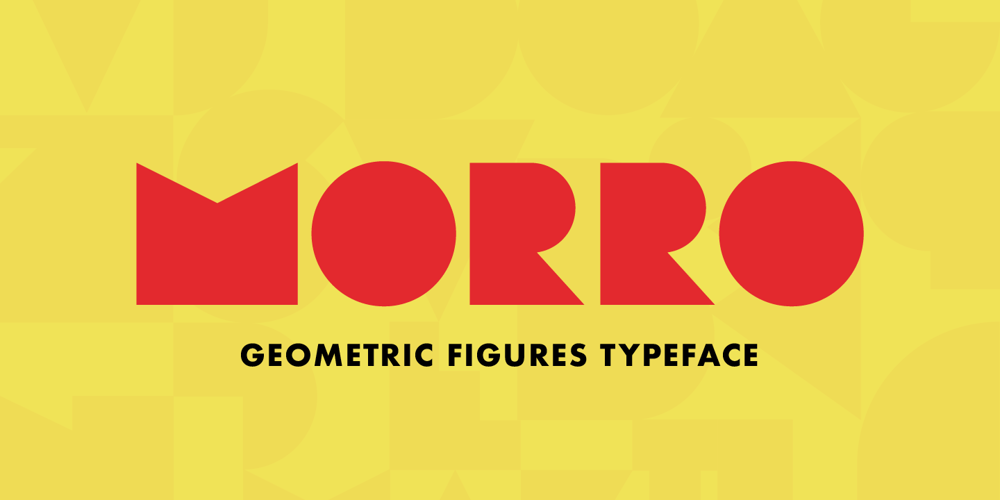
Morro Font Family was designed by Daniel Feldt and published by Great Scott. Morro contains 3 styles and family package options. Morro is based on simple geometric shapes – circles, triangles and rectangles. Imagine cutting circles, triangels and rectangles from paper and arranging them into letters where the outer edges form a filled figure. Arranging figures like this to form letters is nothing unique. You can find several beautiful examples of alphabets that inspired the creation of Morro. Everywhere from a 1936 booklet by Draughtsman called ”Modern lettering for all branches of commercial arts” to obvious examples is from the paragon of the design industry – Milton Glaser – with his typeface Baby Teeth.What sets Morro apart from other digitized versions of Glasers’ ”Baby teeth”, or other similar designed fonts, is that Morro is expanded into lower case and also supports Basic latin, Western European, Central European, south Eastern European and Pinyin. There are also stylistic alternatives to some of the glyphs.Morro Regular works like a stencil and is accompanied by a block shadow style and an outline. The Morro family of fonts are layered and can be superimposed on each other to create several types of text effects.